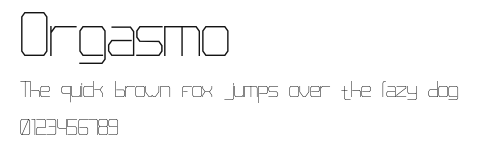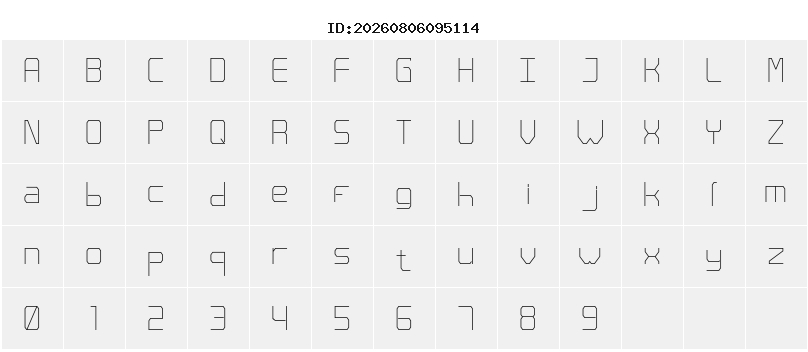
• Font Name: Orgasmo
• Manufacturer: Wesley Pastrana Rosado(Weslo GFx)
About Orgasmo.otf
Orgasmo.otf is a modern, elegant sans-serif font designed for ultimate readability and visual harmony. Perfect for branding, headlines, web design, and print materials.